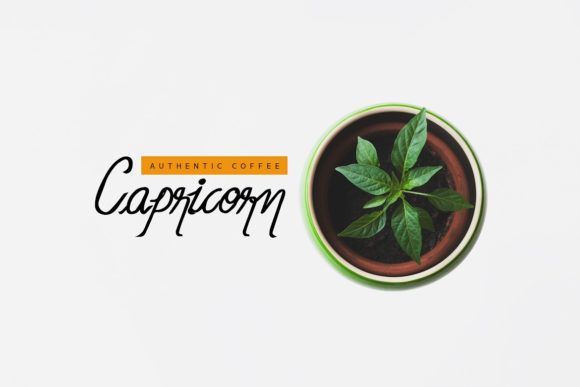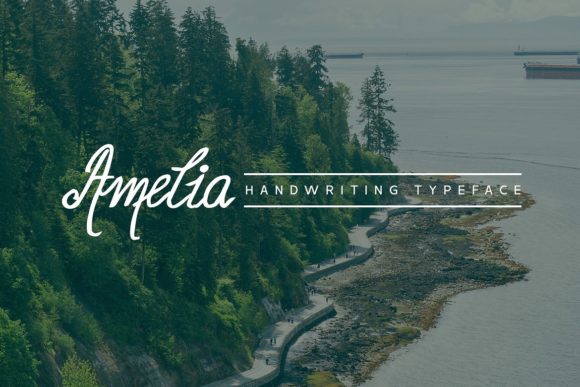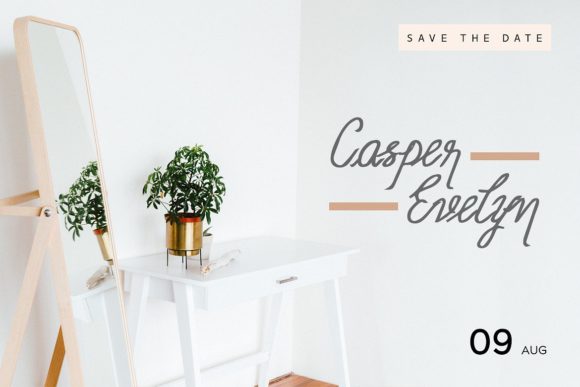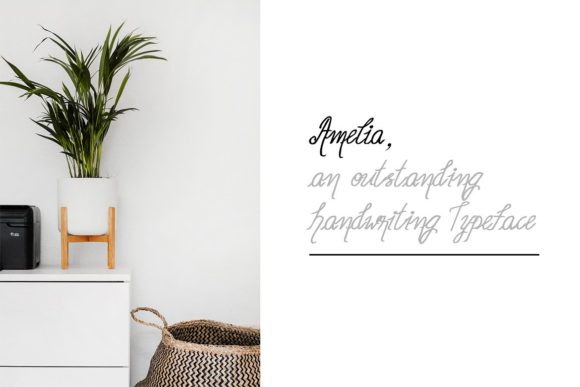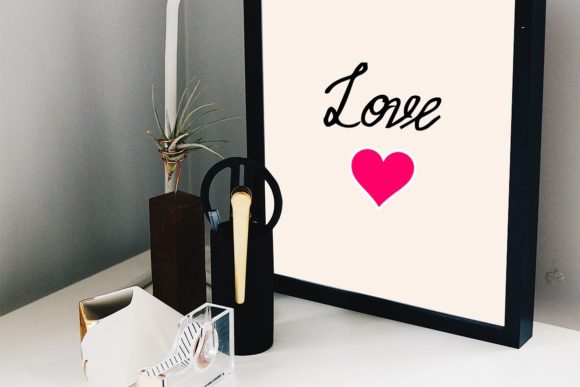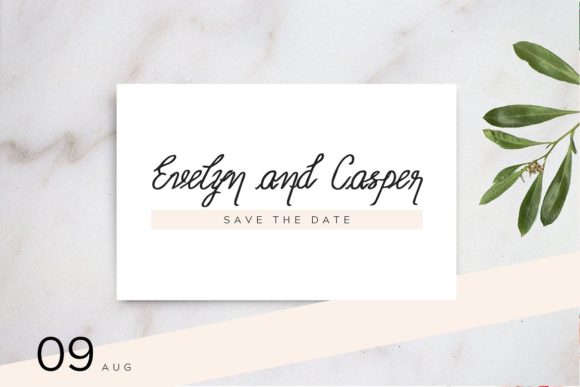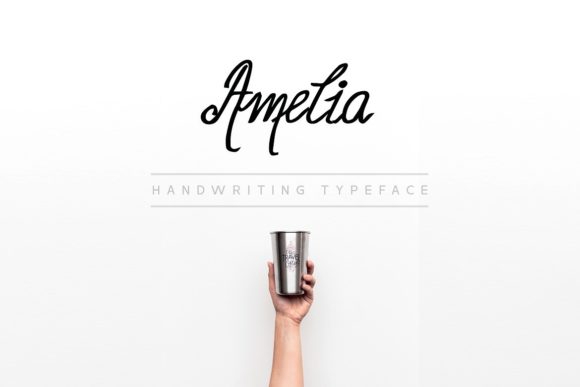
The Amelia Font: A Handwritten Gem for Designers and Crafters
I still remember the design project that led me to discover the beautiful Amelia font. I was working on a custom wedding invitation for a client, and I was struggling to find the perfect handwritten font that would match the elegant yet playful vibe of the event. That’s when I stumbled upon Amelia, and it instantly became my go-to choice. In this article, I’ll share my experience with this lovely font, its features, and how to make the most of it in various design platforms.
An Honest Review of Amelia Font
The Amelia font has won my heart with its simplicity and smooth texture. Here are what I love about it:
• ✨ Simple yet elegant handwritten style
• ✅ Smooth texture that works well for both web and printing techniques
• ✅ Perfect for a wide range of design projects, from invitations to branding materials
While Amelia is an excellent font, it’s not without its quirks. Here are a few things to keep in mind:
• 🤔 Limited character set compared to some other fonts
• ⚠️ May not work well with very small font sizes due to its handwritten nature
The Story Behind Amelia Font
The Amelia font was designed with the intention of creating a simple yet elegant handwritten font that would work well for a wide range of design projects. The designer aimed to create a font that would be perfect for both web and printing techniques, with a smooth texture that would make it versatile and easy to use.
What is the Amelia font best used for? The Amelia font is perfect for a wide range of design projects, including invitations, branding materials, web graphics, and more.
Is the Amelia font suitable for body text? While the Amelia font is beautiful, it’s best used for headings and titles due to its handwritten nature. For body text, a more traditional font might be more suitable.
Is the Amelia font available in different styles? The Amelia font comes in a range of styles, including regular, bold, and italic. You can experiment with different styles to find the one that works best for your project.